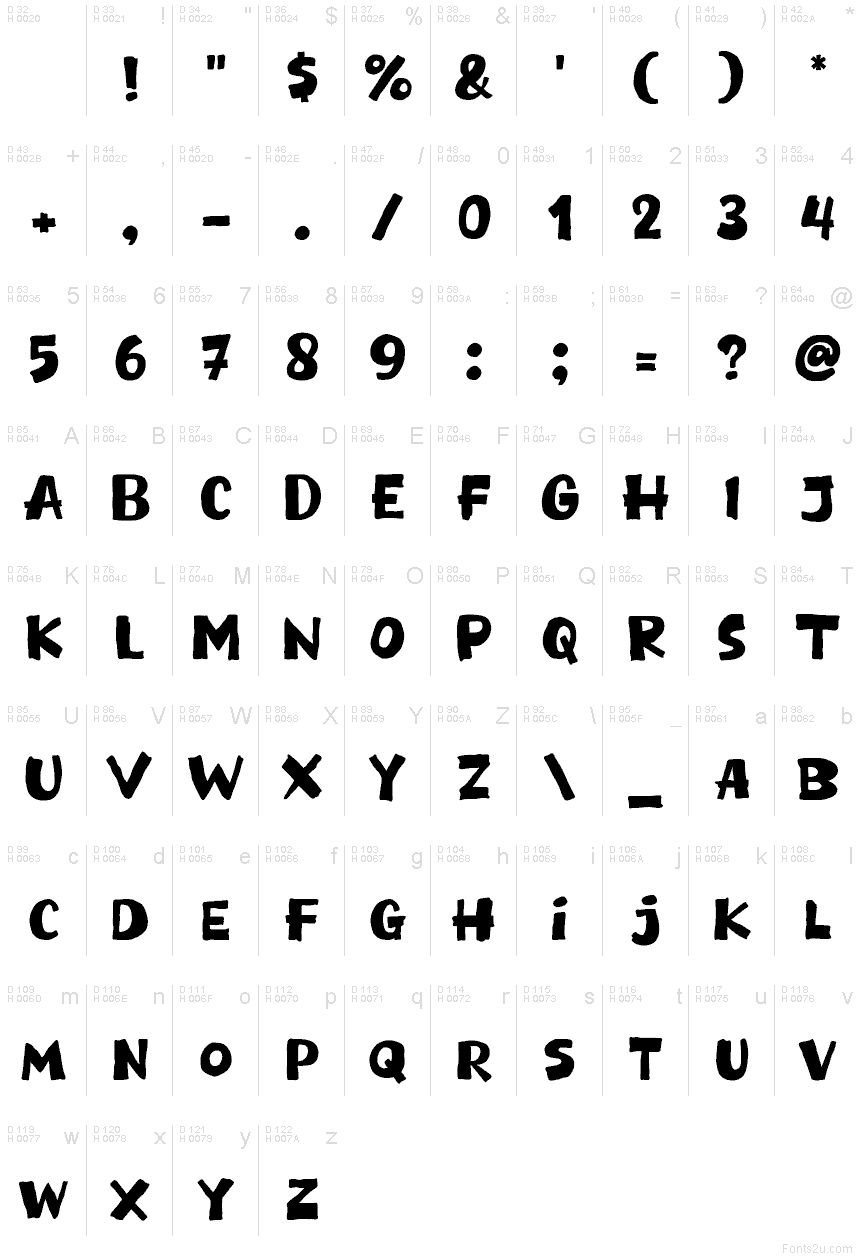
Howdy Monkey
Howdy Monkey font is a free display font designed by Khurasan with expanded width and bold weight. It’s nostalgic and made of irregular letter shapes, bringing to the table a whimsical appearance with a retro influence. Use it in your quirky projects to deliver its vintage vibe.
Get creative with Howdy Monkey in websites, social media ads, logos, brochure designs, album covers, or posters. The catchy style will work great for both printed and digital products including packaging ideas like tea boxes, snack packages, or others. Stickers are also another way to use this classic cartoon font!